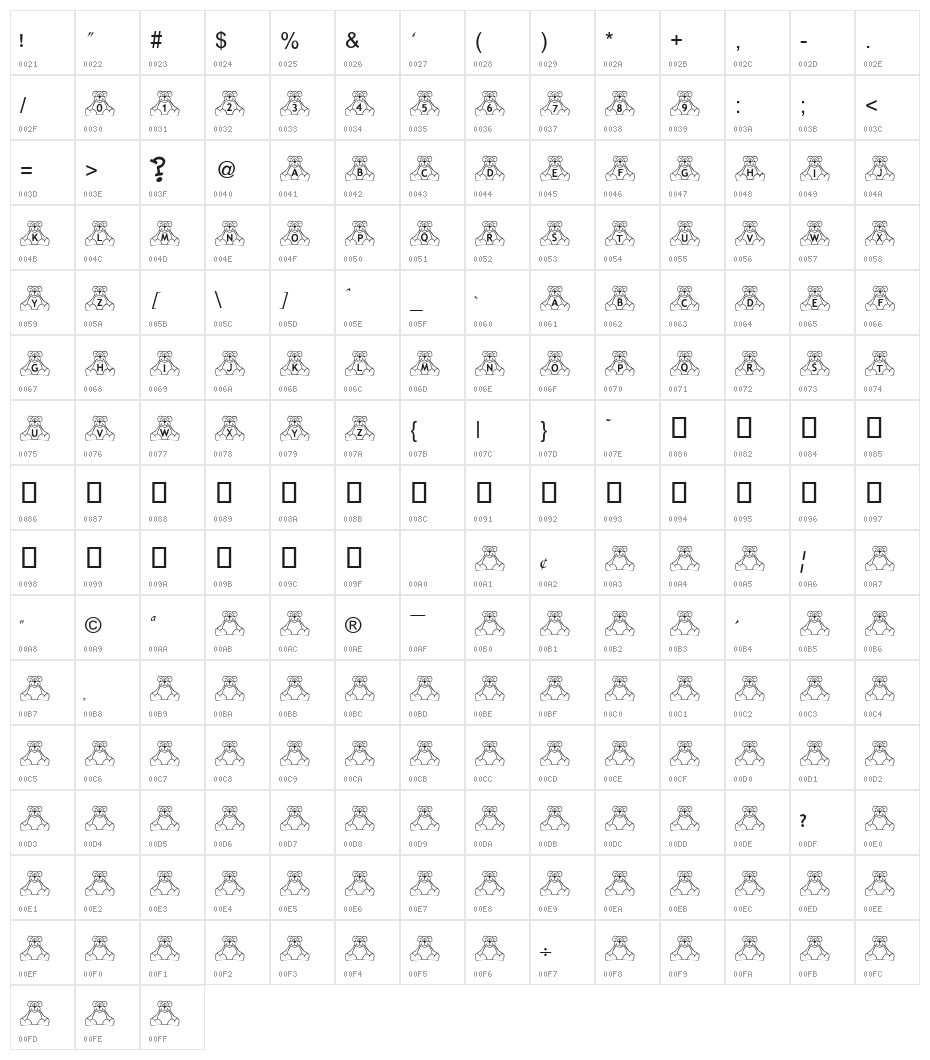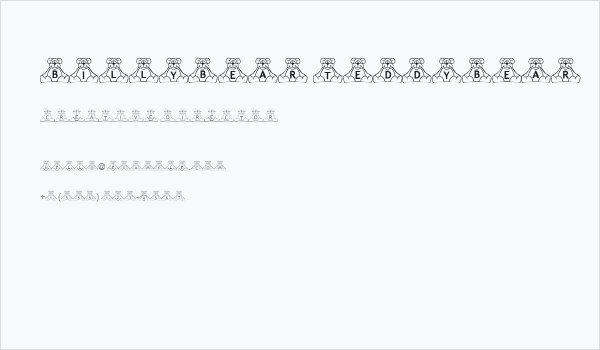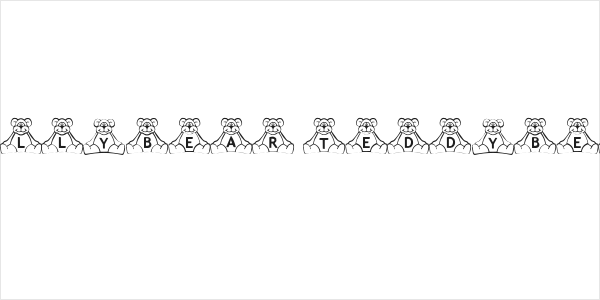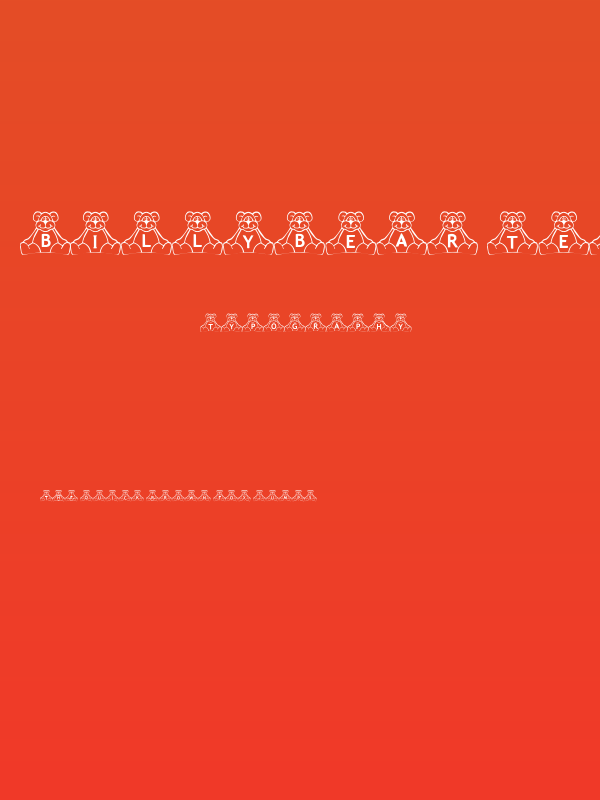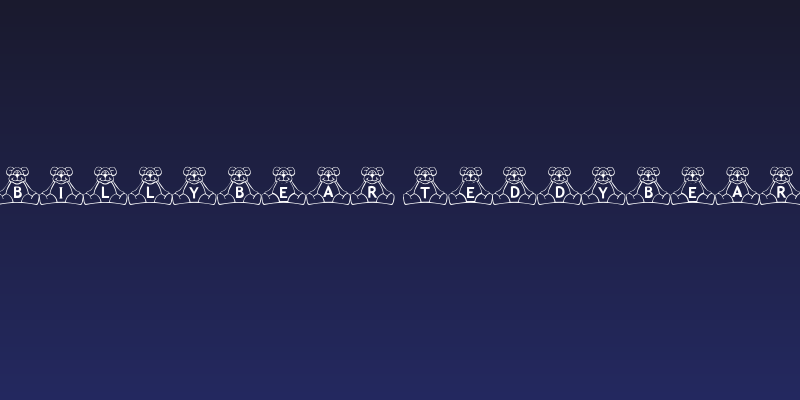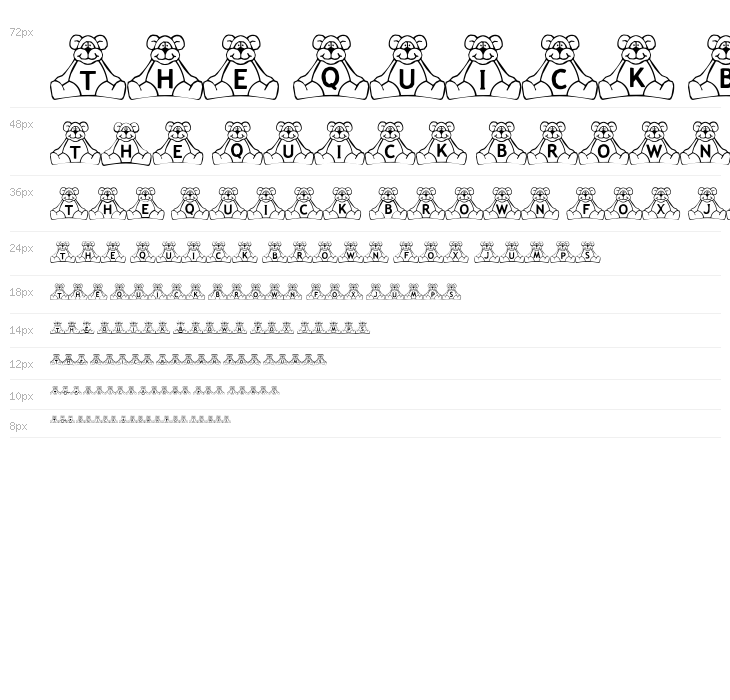
BillyBear TeddyBear Font
BillyBear TeddyBear Description
This playful and whimsical font features each character embedded within a teddy bear design, creating a unique and charming appearance. The letters and numbers are bold and clear, making them easily readable despite the decorative bear motif. The font maintains a consistent style across all characters, with each bear sitting upright and holding the letter or number in its lap. This design adds a fun and friendly touch, ideal for projects aimed at children or those seeking a lighthearted aesthetic. The special characters are presented without the bear motif, maintaining simplicity and clarity.
| Proposed Projects | Ideal for children's books, playful invitations, toy packaging, and educational materials. |